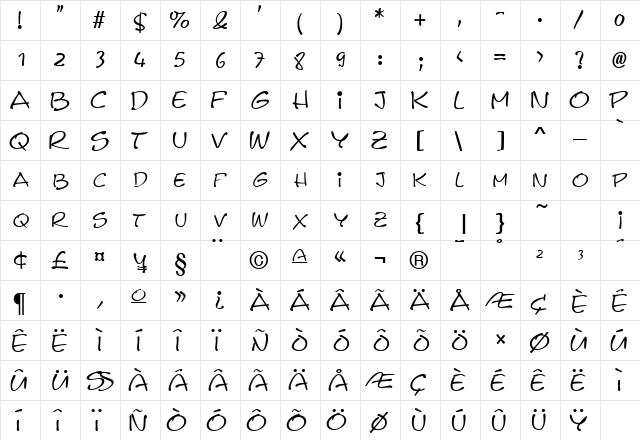
FreneticSCapsSSK Regular Font Preview
FreneticSCapsSSK Regular
Design Context for FreneticSCapsSSK Typeface
FreneticSCapsSSK is a composed and adaptable typeface that performs quietly and consistently across a wide range of design contexts.